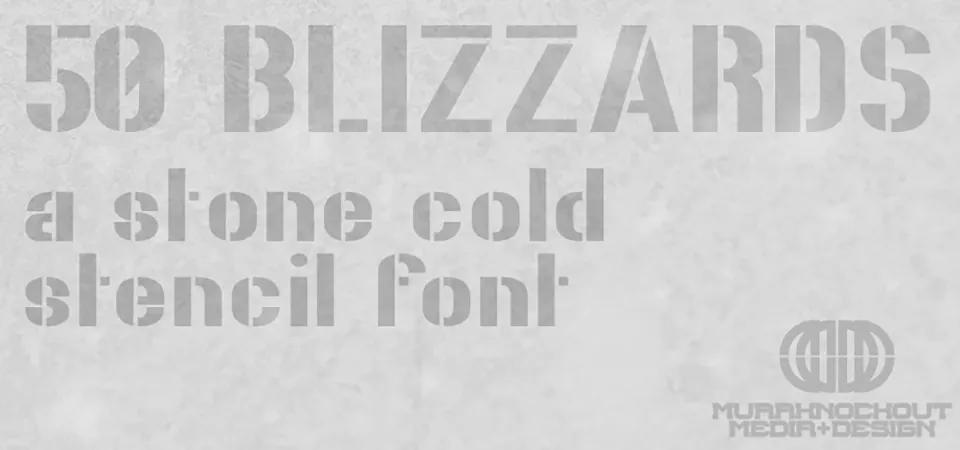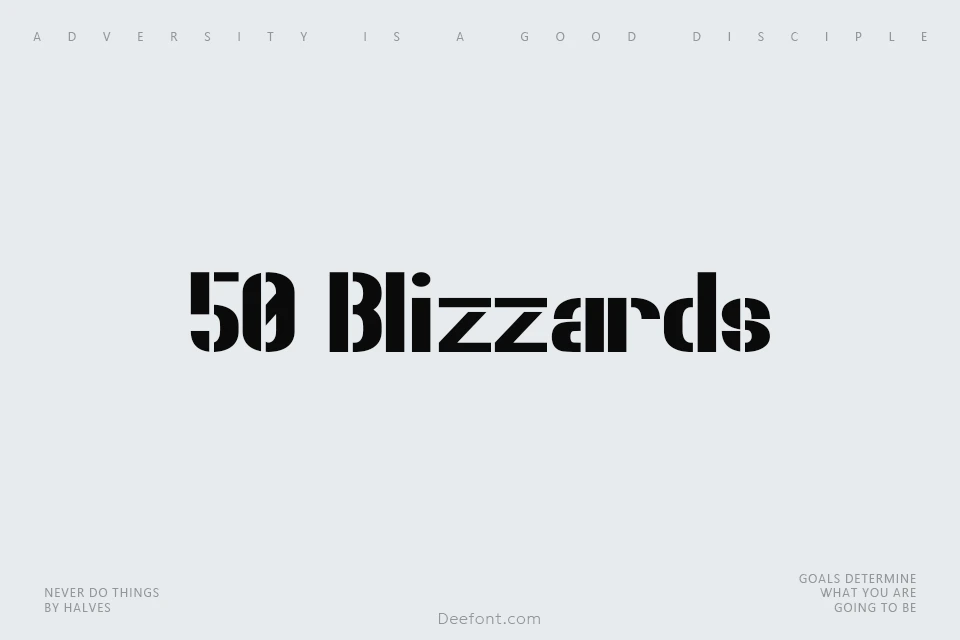
50 Blizzards Font
50 Blizzards Font started out as graffiti influenced, but developed into a Rough, Edgy Stencil Font. Perfect for Titles, Cartoon Designs, and anything that needs some Hard Stencilling!